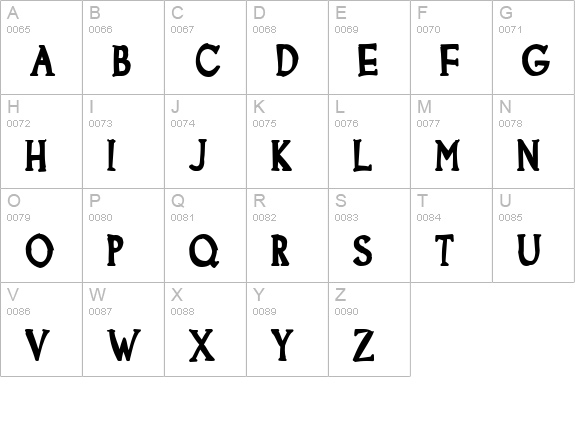
Goodfish Ink Font Details
Goodfish Ink is a stylish and versatile display font that exudes a sense of creativity and sophistication. With its bold, hand-drawn letterforms and unique ink texture, this font is perfect for adding a touch of artistic flair to your designs. Whether you're working on branding projects, packaging, posters, or social media graphics, Goodfish Ink is sure to make a statement. The best part about Goodfish Ink is that it is completely free to download at FontsMarket.com. This means that you can easily access this eye-catching font and use it in your projects without any cost. So why wait? Give your designs a fresh and modern look with Goodfish Ink today!